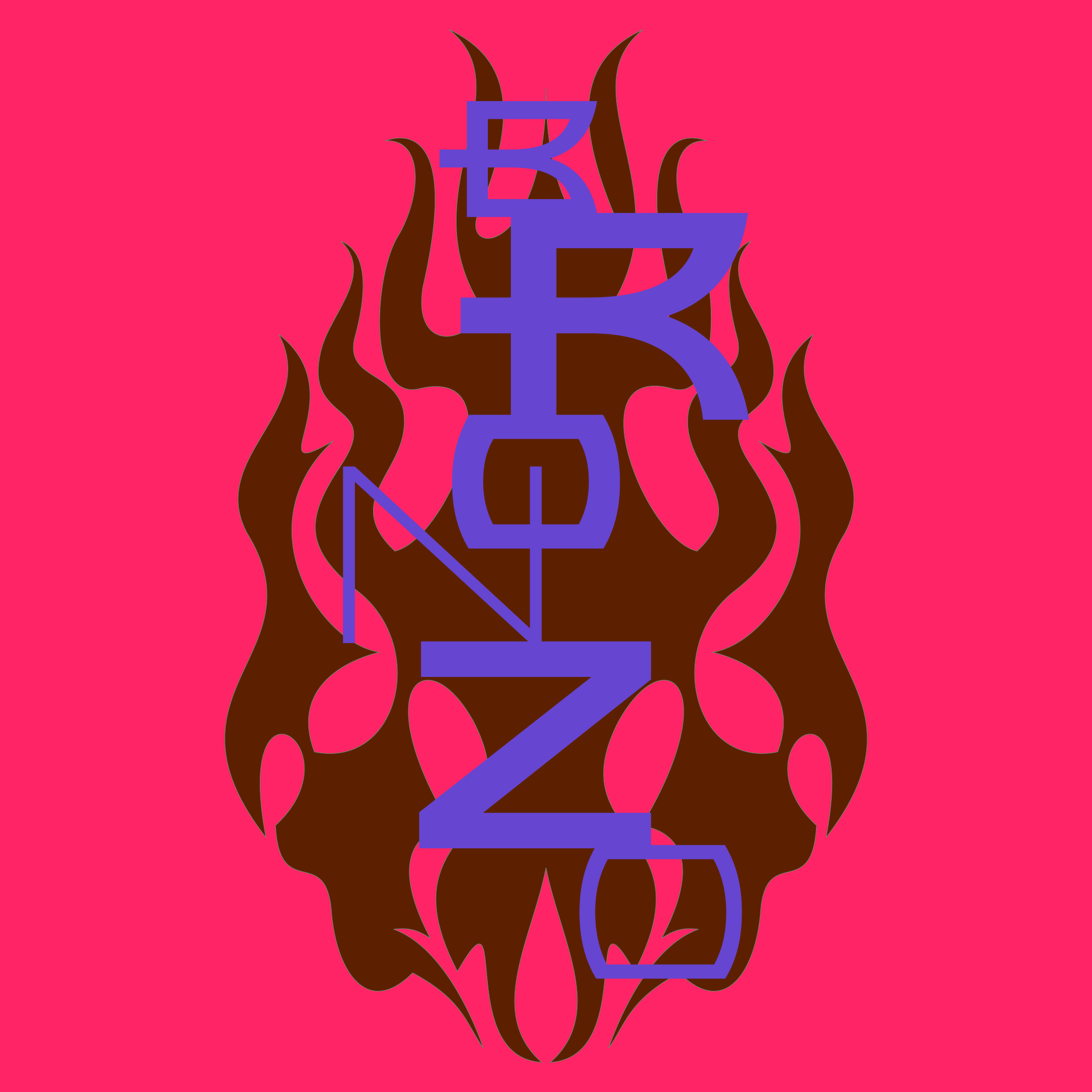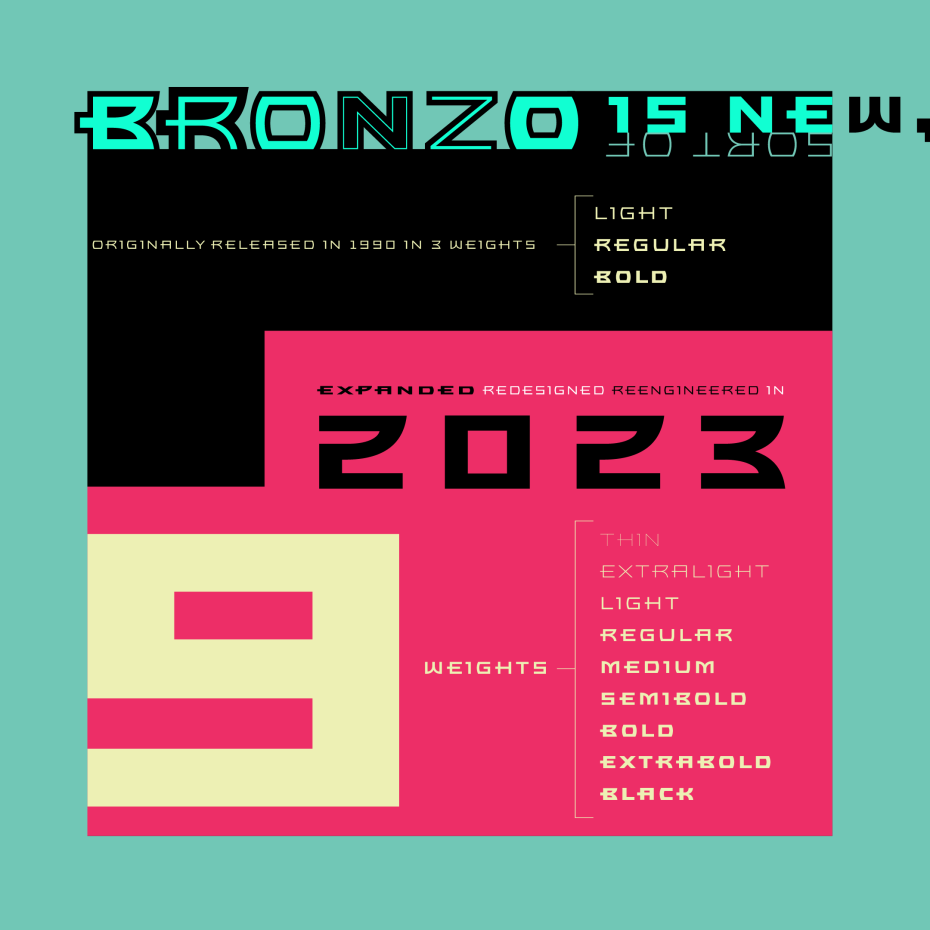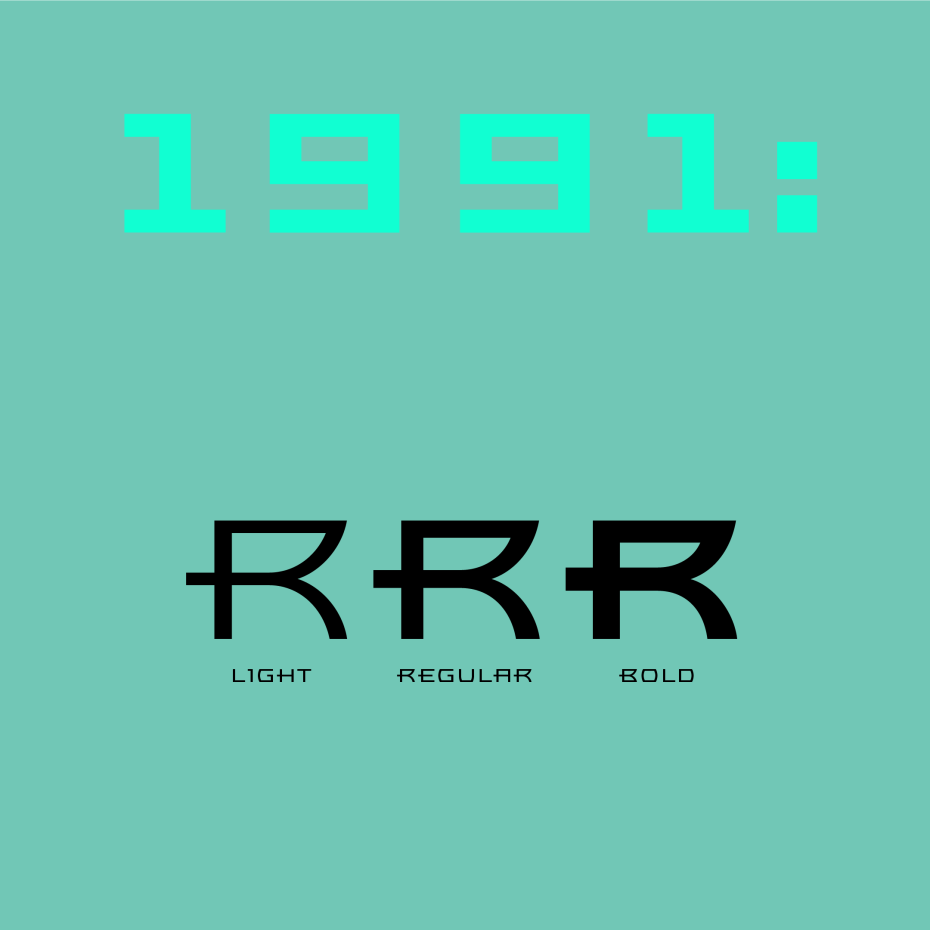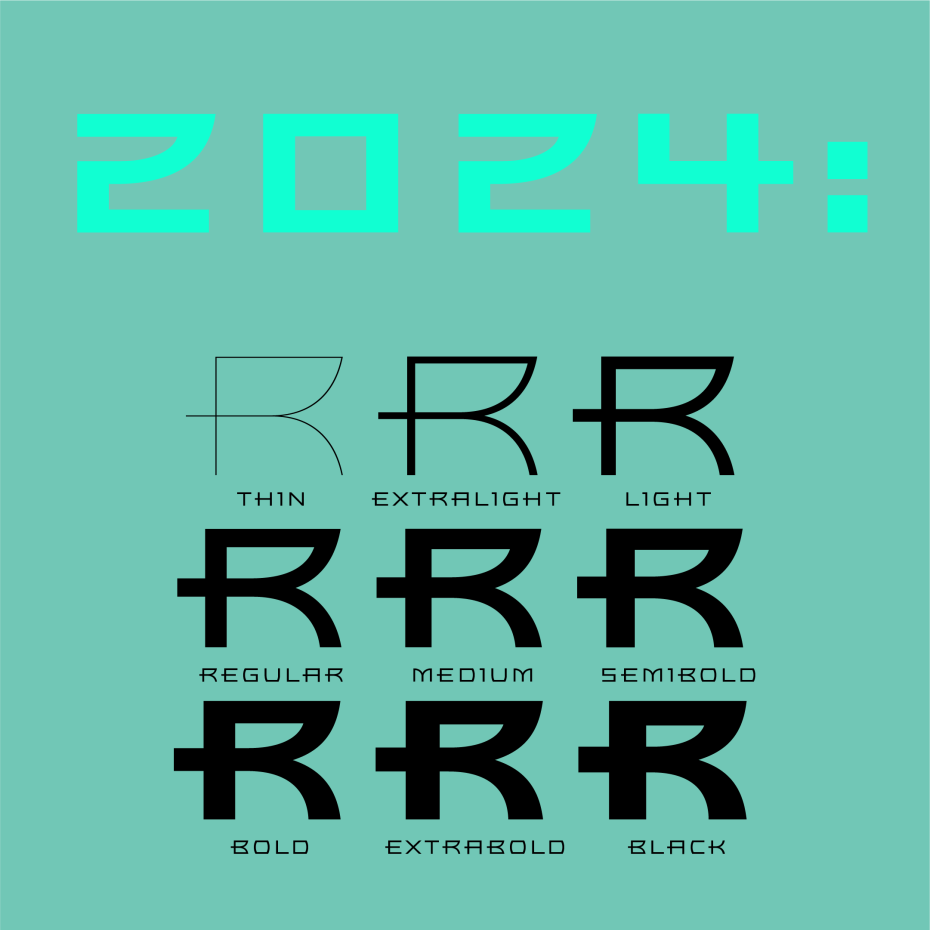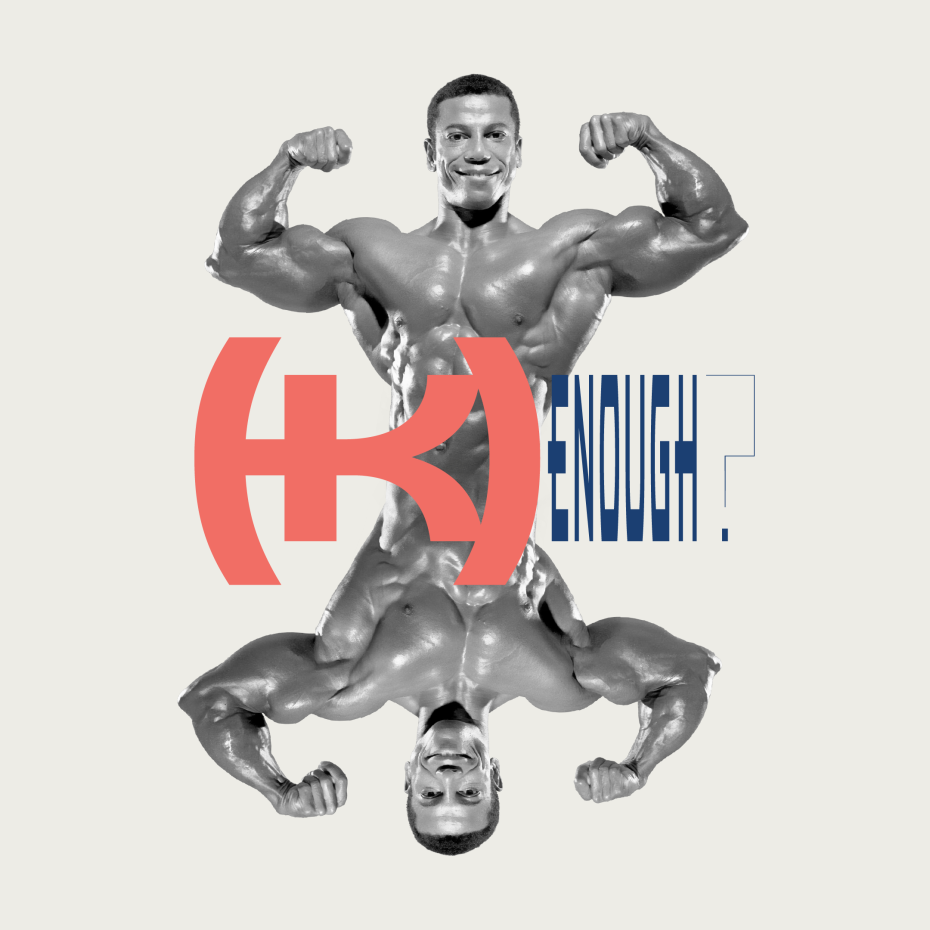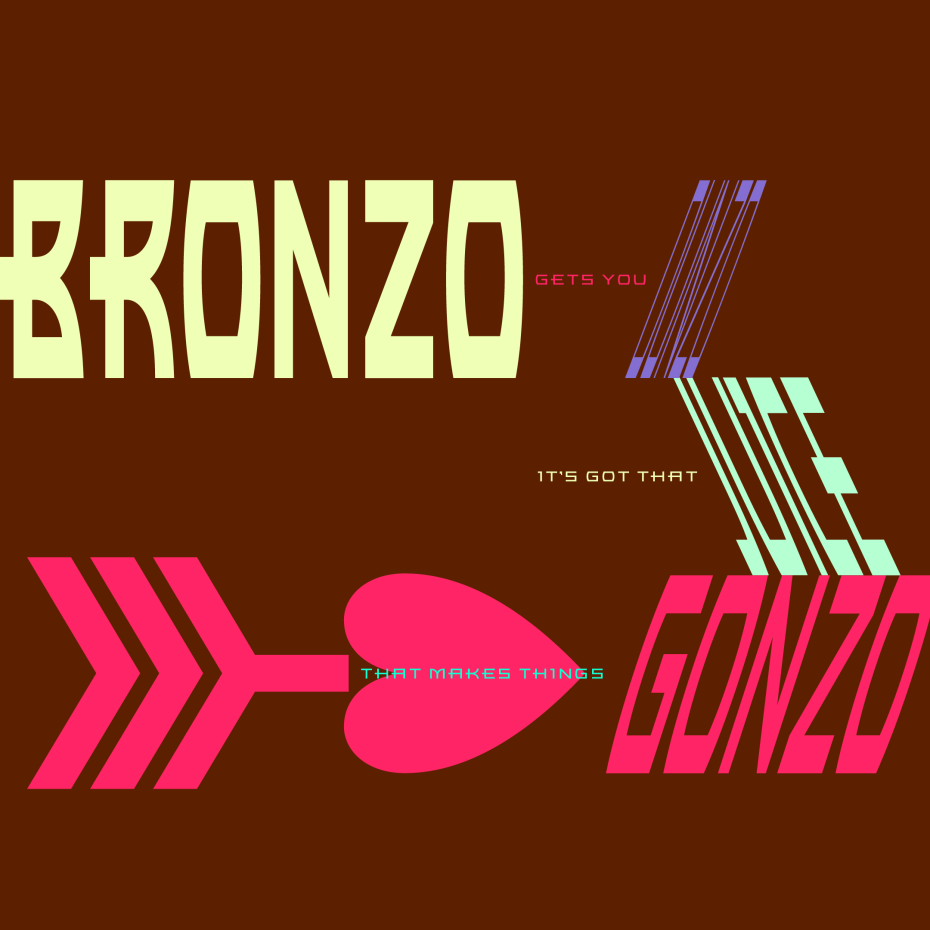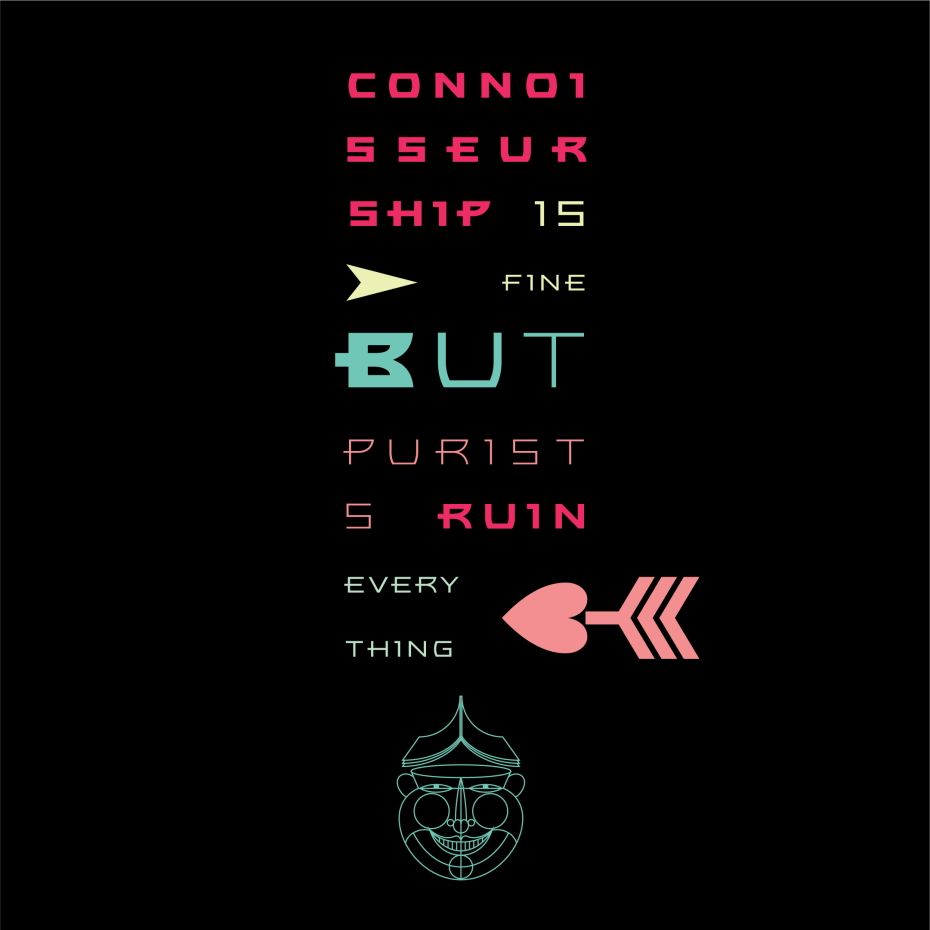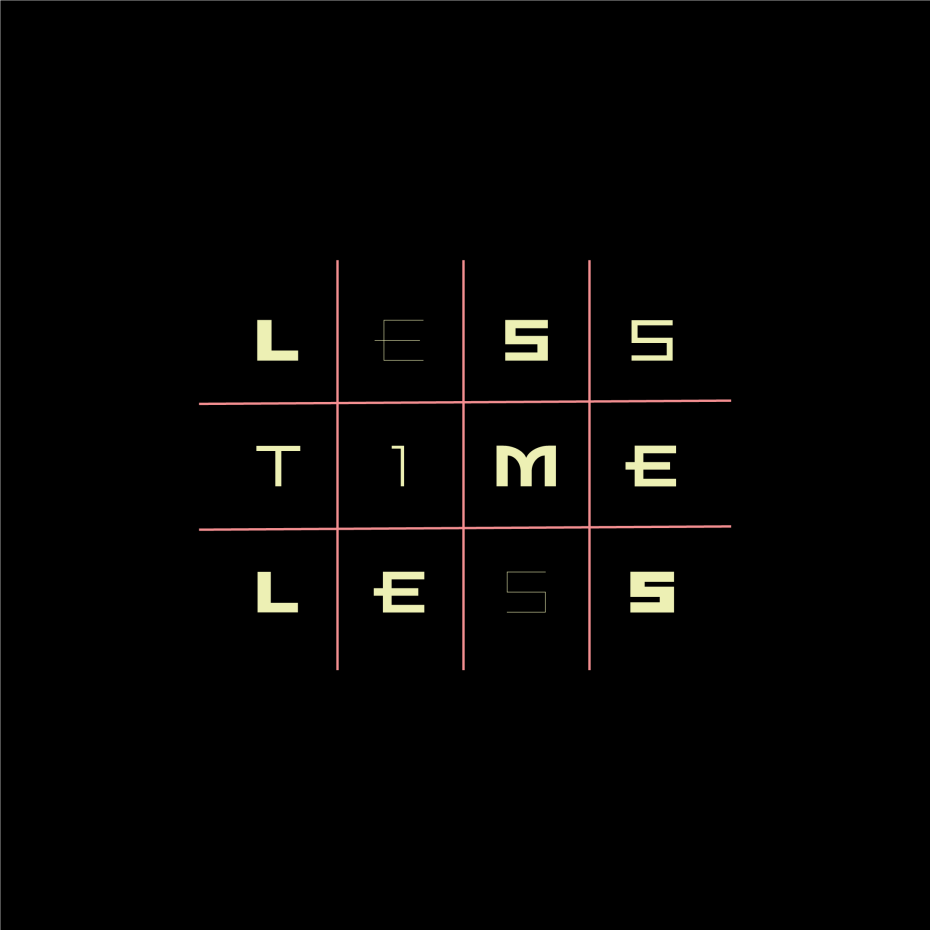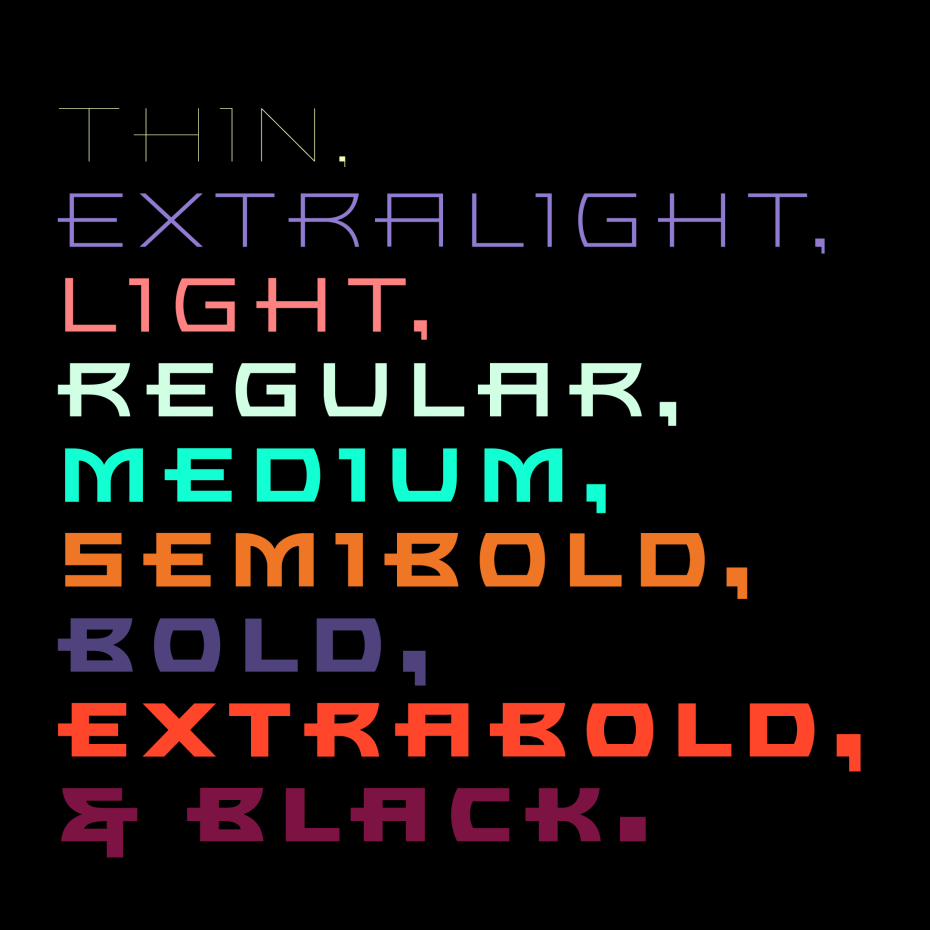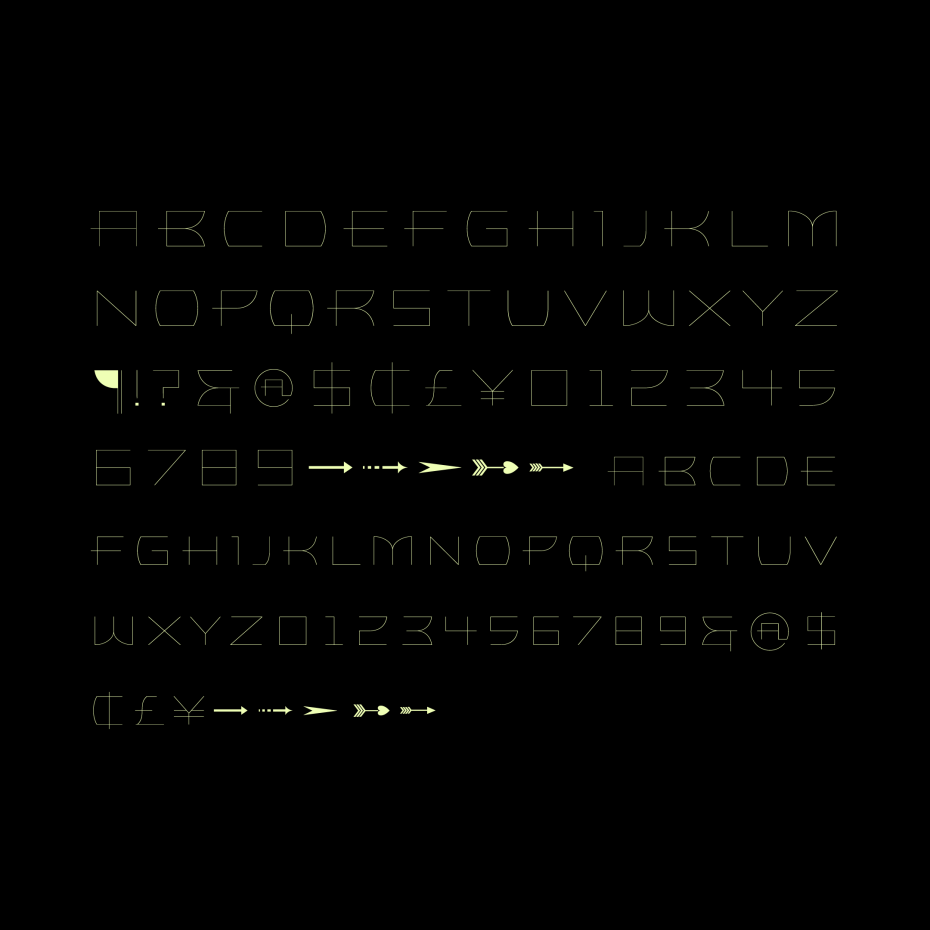
Bronzo was originally designed at Thirst, in Chicago, by Rick Valicenti & Mouli Marur in 1989, to complement Gilbert paper’s Esse line of papers. The typeface itself became wildly popular—so much so that Thirst released it in 1990. That event also kicked off a new digital type foundry, which Rick named Thirstype.
When Thirstype went away in the mid-2000s, so did Bronzo—but a design so iconoclastic should live on. This redesign of Bronzo expands it from the original three weights—Light, Regular, and Bold—to nine, with brand new thinner and thicker extremes. There is also a ton of new language support, and totally redesigned accents.
Bronzo was, originally, three weights: Light, Regular and Bold, every weight drawn by hand. (Superfamilies weren’t technically feasible until a decade later.)
With this new release, I’ve expanded Bronzo to nine weights: from a delicate, monolinear Thin all the way up to a thick, muscular Black.
This weight expansion was a tricky maneuver, in that I needed to discover the proportions creating the original weight changes, and then expand beyond and through them—lighter, bolder, and in between. Bronzo Thin and Extralight have never existed, nor have Bronzo Medium, Semibold, Extrabold, or Black.
To make these new weights, I measured differences in thickness and width from the original Light to Regular to Bold, then used the mathematical ratios I found, and exaggerated in both directions of the weight axis. Then, I amplified what I liked to make weight differences clearer.
Regular remains close to its original weight. Light is now a bit lighter, Bold is a bit bolder. With those tweaks, Bronzo has become more athletic in scope.
Even though I worked with Bronzo regularly at Thirst, I never understood why it sparkled to my eyes as it did. I had to take it apart and reconstruct it to understand its tension, its whole vibe. This is what I found:
Bronzo appears to always move forward, but also remain still, via an ingenious construction: a center stroke that only ever sticks out on the left, never the right. A tense curve system that only ever happens on the right, never the left, and always steps out, so that curves never seem quite complete. And a width that sits uncomfortably between square and rectangle. Those three things, combined with a carefully balanced light to dark ratio, are what makes Bronzo always tense and ready.
Bronzo’s shapes are a distillation of durable ideas that appear repeatedly throughout the last 150 years of type design. They can seem totalitarian in their forcefulness, looking very much like Russian Constructivist forms. Viewed through another lens, Bronzo has the grace of Geometric Art Deco. And viewed through still another, it’s as exuberant as American Streamline. Because of that multiplicity, I’ve always considered Bronzo a syllabary for display typeface design. It’s sort of an ur-typeface for me.
Bronzo utterly ignores graphic design’s primary rule: don’t stretch the type. Bronzo’s widths and contrast were, in fact, created by stretching existing typefaces to sculpt its initial 1989 sketches. Bronzo is designed to be stretched, warped, and slanted—and it gains energy from those very modern sins.
Bronzo has an intrinsic dichotomy: it accepts Modernist ideals of minimal, rational construction—but it also adopts a luxuriant shape vocabulary over Modernism’s sandblasted, boring neutrality. It’s almost an alternate reality, a “what if?” of Modernism. Modernism’s fun, interesting, cute reboot.